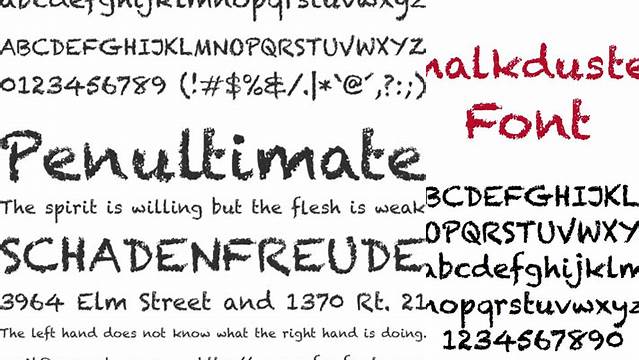
What Makes Chalkduster Normal Font Special?
Before we jump into the download details, let's chat about what makes Chalkduster Normal Font so cool. This font is super recognizable, mimicking the classic look of handwriting on a chalkboard. It's got that slightly imperfect, textured vibe that gives it a personal and authentic feel. Imagine using it for school projects, invitations, or even branding materials where you want to project a sense of fun and creativity. The Chalkduster Normal Font is incredibly versatile, fitting perfectly in designs that need a touch of whimsy and nostalgia. The charm of the Chalkduster font lies in its ability to evoke memories of school days and artistic expression, making it a popular choice for designers aiming to connect with audiences on an emotional level. Its unique texture and slightly uneven strokes lend a handcrafted feel to any project, enhancing its visual appeal and making it stand out from more conventional typefaces. Whether you're working on a presentation, creating eye-catching social media graphics, or designing a logo, the Chalkduster font can add a distinctive and memorable touch. Its versatility extends to both digital and print media, making it a valuable asset in any designer's toolkit. Furthermore, the Chalkduster font is often associated with creativity, learning, and innovation, making it an ideal choice for educational institutions, creative agencies, and businesses looking to project a friendly and approachable image. Its playful nature and nostalgic appeal can help capture the attention of viewers and create a lasting impression, ensuring that your message is not only seen but also remembered. With its unique blend of charm and functionality, the Chalkduster font is a timeless classic that continues to inspire and delight designers around the world.
Tips for Using Chalkduster Normal Font Effectively
So, you've got the Chalkduster Normal Font – awesome! Now, let's talk about how to use it effectively. Because this font has a distinct, somewhat casual style, it's best used sparingly. Overusing it can make your design look cluttered or unprofessional. Think about using it for headings, short quotes, or accent text. Pair it with a cleaner, more neutral font for body text to create a nice contrast and improve readability. Also, consider the overall tone of your design. Chalkduster Normal Font works great for projects that are playful, educational, or nostalgic. But it might not be the best choice for something that needs to look serious or corporate. Experiment with different sizes, weights, and colors to see what works best for your specific project. Remember, the key is to enhance your design, not overwhelm it. Effective font pairing can significantly enhance the visual appeal and readability of your designs. When pairing Chalkduster Normal Font with other typefaces, look for fonts that complement its unique characteristics without overshadowing it. A clean and simple sans-serif font, such as Open Sans or Lato, can provide a nice contrast and improve the overall legibility of your text. Alternatively, a classic serif font, such as Times New Roman or Garamond, can add a touch of elegance and sophistication to your designs. Experiment with different font combinations to find the perfect balance between style and functionality. In addition to font pairing, consider the overall color palette of your design. The Chalkduster Normal Font pairs well with a variety of colors, depending on the desired mood and tone. For a playful and energetic look, try using bright and vibrant colors, such as yellow, green, or blue. For a more subtle and sophisticated look, opt for muted tones, such as gray, beige, or cream. Remember to choose colors that complement each other and create a harmonious visual experience. Finally, pay attention to the overall layout and composition of your design. The Chalkduster Normal Font can be used to create focal points and add visual interest to your designs. Use it sparingly for headings, subheadings, or call-to-actions to draw the viewer's attention to important information. Avoid using it for large blocks of text, as it can be difficult to read and may detract from the overall design. By following these tips, you can effectively use the Chalkduster Normal Font to create visually appealing and engaging designs that capture the attention of your audience.
Wrapping Up